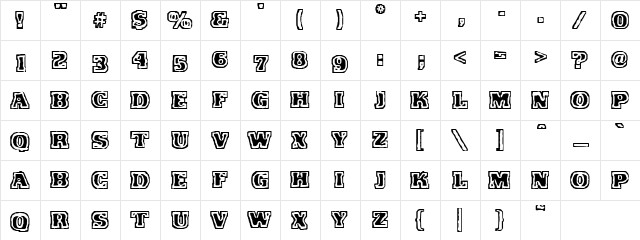
VTC FunkinFrat Regular
Design Context for VTC FunkinFrat Typeface
VTC FunkinFrat trades formality for fun, with bouncy, characterful letterforms that bring warmth and energy to any project.
Great for children's books, toy packaging, family event branding, and casual consumer-facing design.
Font Pairing: Pairs well with a rounded or humanist sans for body copy, maintaining the friendly tone without relying on VTC FunkinFrat to carry extended reading.
Pro Tip: Avoid using VTC FunkinFrat for long passages of text — it works best for headlines, labels, and short calls to action.